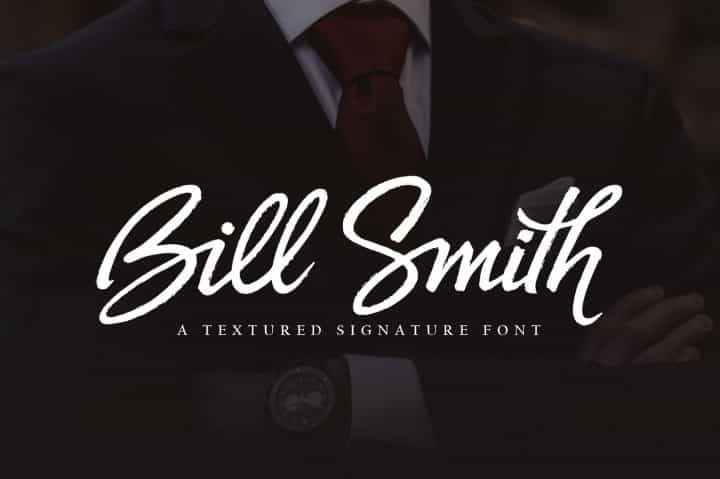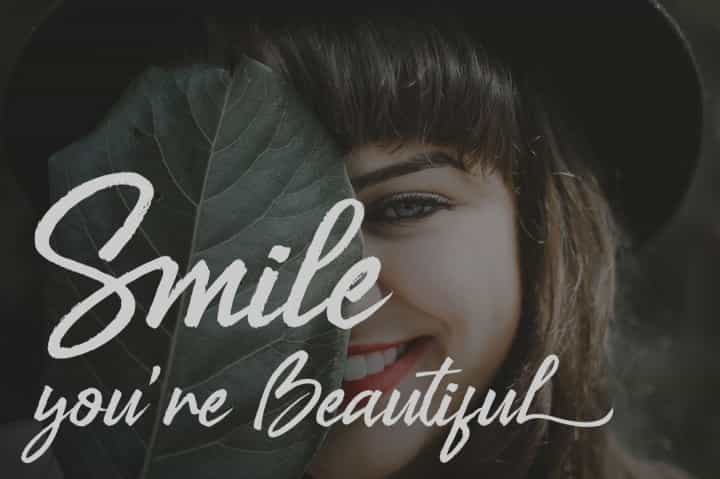
Discover Bill Smith Script Font, part of the Brush Handwritten collection—a versatile and unique font perfect for adding a personal touch to your projects. Download it for free and enjoy crafting designs with style, from invitations to social media posts. This font is available exclusively for personal use, giving you the freedom to create without limits. Unlock your creativity with Bill Smith Script Font today!
Introducing Bill Smith Font. It is a design that was made and shared by Subectype. The Bill Smith is a font with an embossed style and it has a textured look. The simplicity of this font is the reason why it looks so beautiful. It is just right for photography, signatures, branding and any other designs that require a plain but strong typeface.